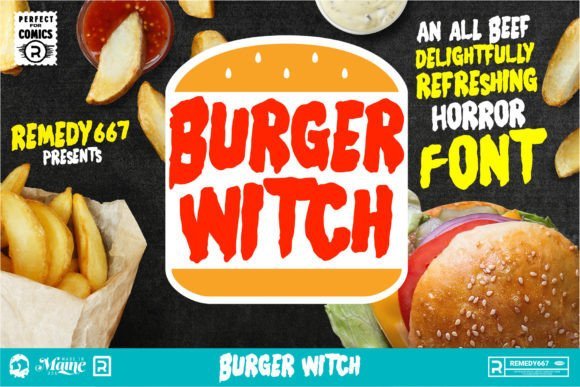
The Perfect Blend of Horror and Chic: Unleashing the Burger Witch Font
Have you ever stared at a blank page, waiting for the perfect font to strike inspiration? For designers, that moment is a thrill – the spark that sets off a creative chain reaction. For me, it happened when I stumbled upon the Burger Witch Font, a stylish modern display font that’s equal parts haunting and handsome.
With its roots in classic horror film poster artwork and a DIY aesthetic, the Burger Witch Font is more than just a stylish choice for headlines – it’s a versatile tool for adding a touch of edginess to any design project. From apparel to packaging, posters to skateboards, this font is perfect for designers looking to add a little magic to their work.
Burger Witch Font Key Features
- Font Family: A unique, hand-drawn sans-serif font with a whimsical touch, perfect for creating eye-catching designs.
- Unique Characteristics: Features a distinctive, curved shape and a set of quirky characters, making it perfect for creating playful and attention-grabbing designs.
- Character Set: Includes a comprehensive set of characters, including uppercase and lowercase letters, numbers, and punctuation marks.
Burger Witch Font Review
As a designer, I was initially drawn to the whimsical charm of Burger Witch Font. Its quirky, handwritten style is perfect for adding a touch of personality to menu boards, advertisements, or even social media graphics. ✨ The font’s bold, chunky letters are attention-grabbing and easy to read, making it a great choice for any food-related branding.
One of the things that works well for Burger Witch Font is its versatility. It comes in a range of weights, from light to bold, which allows designers to adjust the font to suit their specific needs. ✨ Additionally, the font is highly customizable, with a wide range of styles and colors available.
- ⚠️ Limited legibility at small font sizes: While the font is easy to read at larger sizes, it can become difficult to decipher at smaller sizes.
- ⚠️ Not ideal for formal or professional applications: The font’s playful, handwritten style may not be suitable for more formal or professional branding.
Overall, Burger Witch Font is a fun and creative addition to any designer’s toolkit. While it may have some limitations, its versatility and charm make it a great choice for food-related branding and marketing materials.
Getting the Most Out of the Burger Witch Font
To get the most out of the Burger Witch font, use it in bold and italic styles to add emphasis.
Experiment with different font sizes to create visual hierarchy.
Use the font in combination with other fonts to create a unique and eye-catching design.
The Burger Witch font is perfect for:
Food-related designs, such as restaurant menus and food packaging.
Spooky and Halloween-themed designs.
Designs that require a unique and playful touch.
Alternatives to Burger Witch Font
Great Vibes is a modern, elegant script font that is perfect for designers who want to add a touch of sophistication to their projects. It is ideal for use in branding, advertising, and editorial design. Great Vibes is more refined and polished compared to Burger Witch Font, which has a more playful and quirky feel.
Alex Brush is a beautiful, handwritten font that is great for designers who want to add a personal touch to their projects. It is perfect for use in invitations, quotes, and other creative projects. Alex Brush is more elegant and refined compared to Burger Witch Font, but still has a unique and expressive feel.
Carolyna Pro is a modern, sans-serif font that is perfect for designers who want to add a touch of minimalism to their projects. It is ideal for use in branding, packaging, and editorial design. Carolyna Pro is more clean and modern compared to Burger Witch Font, which has a more vintage and eclectic feel.